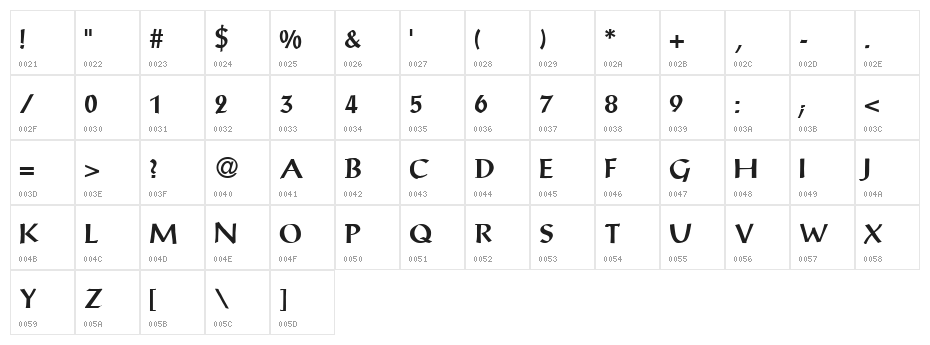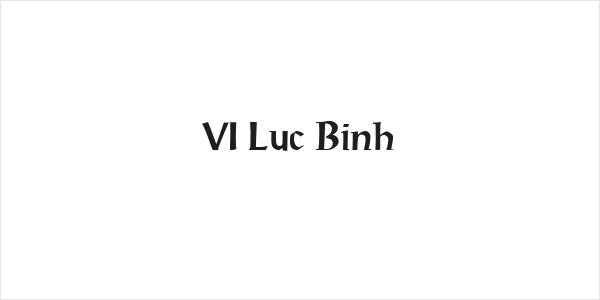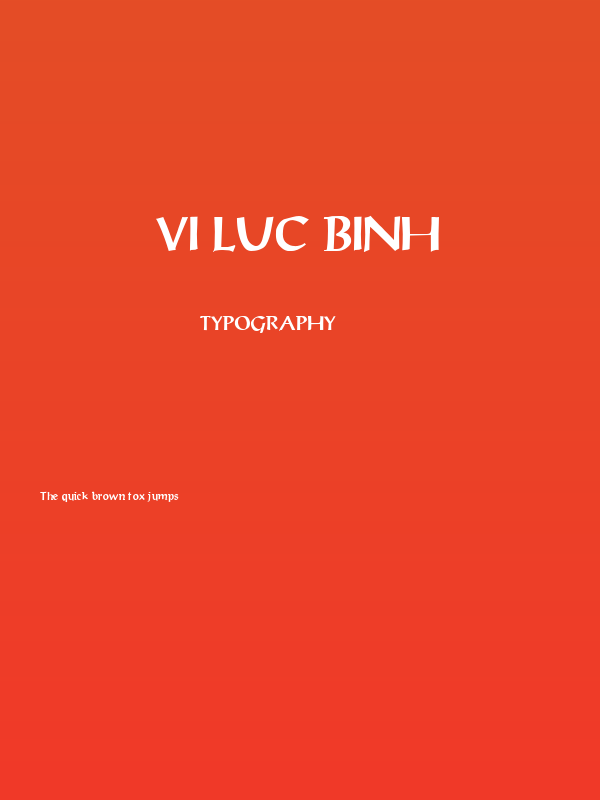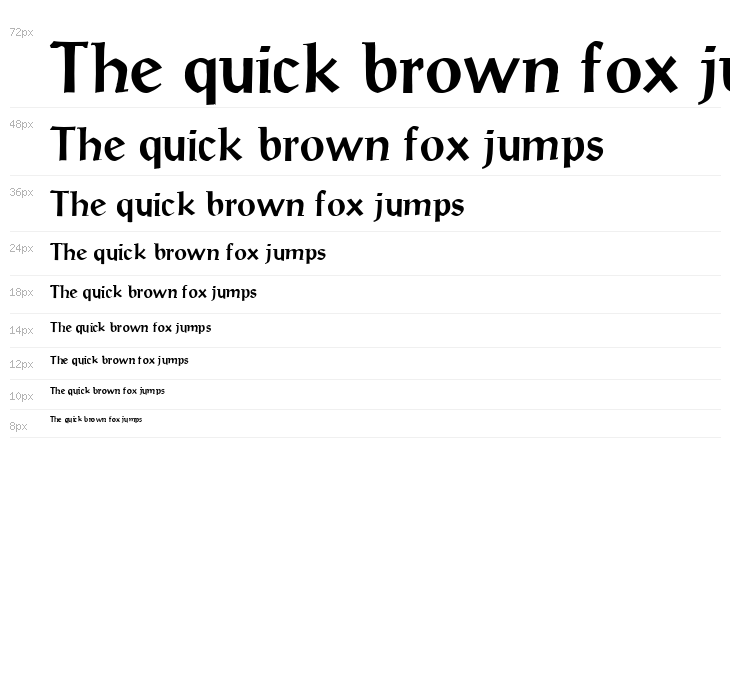
VI Luc Binh Font
VI Luc Binh Description
This font features a unique blend of traditional and modern elements, characterized by its sharp, angular serifs and slightly condensed letterforms. The uppercase letters exhibit a strong presence with their bold strokes and distinct geometric shapes, while the lowercase letters maintain a more fluid and dynamic appearance. The numerals are consistent with the overall style, offering a clear and legible design. Special characters are crafted with attention to detail, ensuring they complement the alphabetic characters seamlessly. The font's overall aesthetic is both sophisticated and versatile, making it suitable for a wide range of applications.
| Proposed Projects | Ideal for branding, editorial design, book covers, and high-end product packaging. |